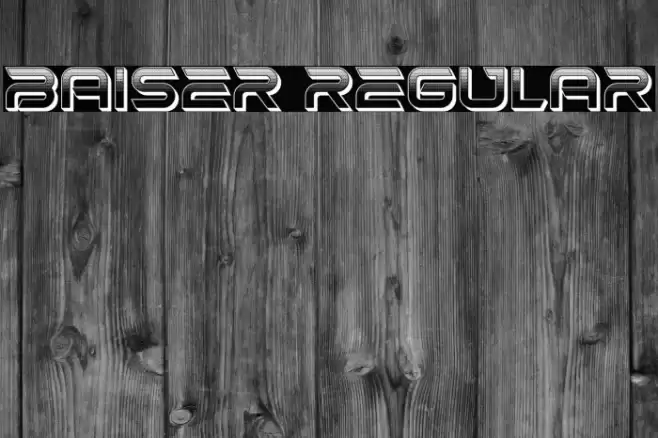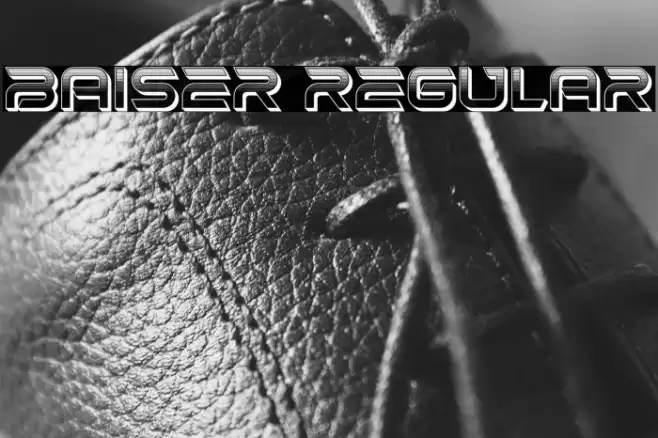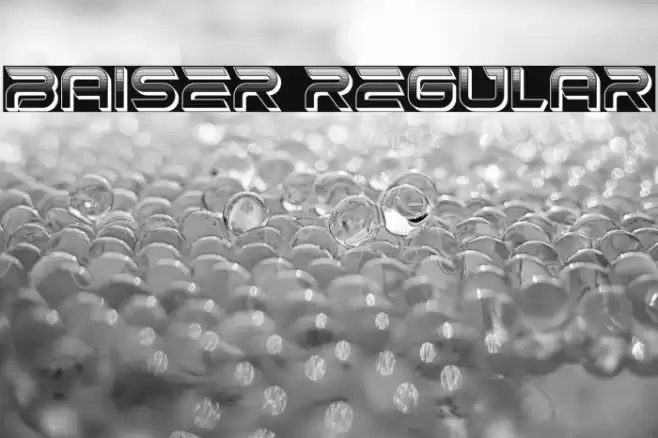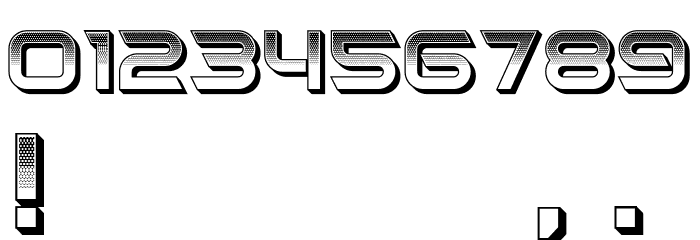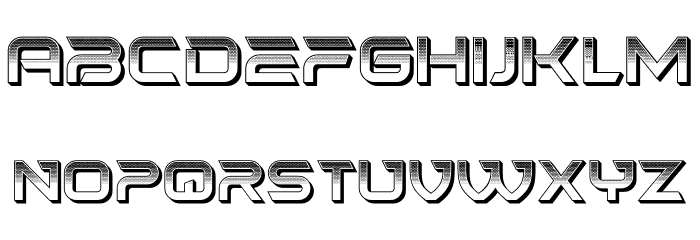
Baiser Regular Font
Baiser Regular Description
This font features a bold, futuristic design with a distinct three-dimensional effect. The characters are outlined with a shadow-like detail that gives them depth and a sense of movement. The uppercase letters are uniformly styled, with geometric shapes and sharp angles that create a modern and dynamic appearance. The numbers and special characters follow the same design principles, ensuring consistency throughout. The font's unique style makes it stand out, with a combination of solid and outlined elements that add visual interest and complexity.
A bold, futuristic font with a 3D effect and geometric styling from Uncategorized fonts.